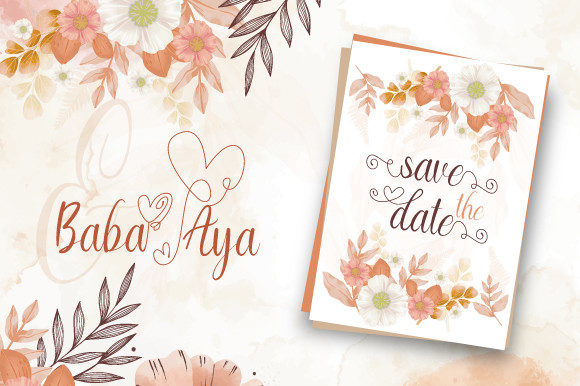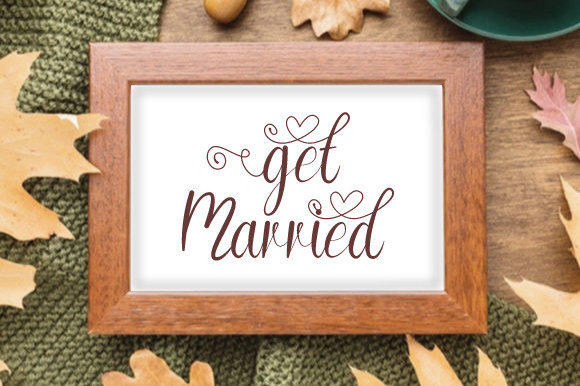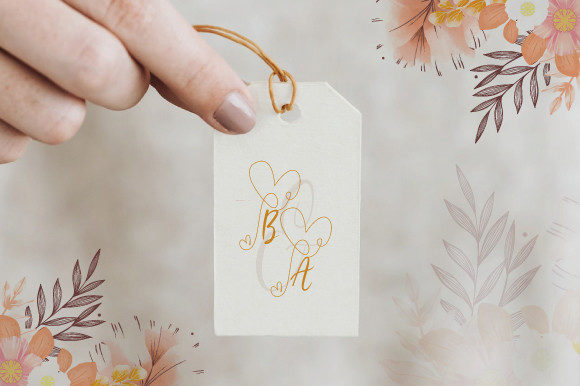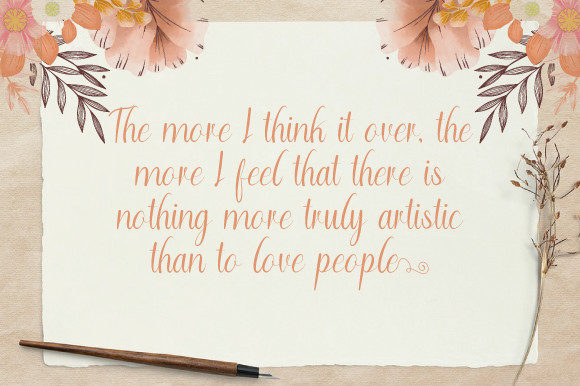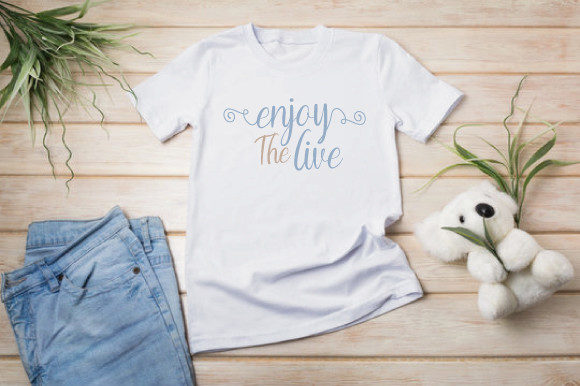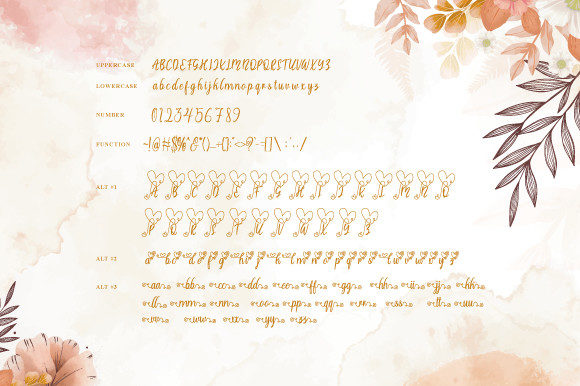
Rajbauti Font
About Rajbauti Font
Rajbauti is a beautiful, dainty and delicate script font. It has a classy look that can be used for logos, branding, invitations, stationery, wedding designs, social media posts, and much more! Rajbauti is PUA encoded which means you can access all glyphs and swashes with ease!